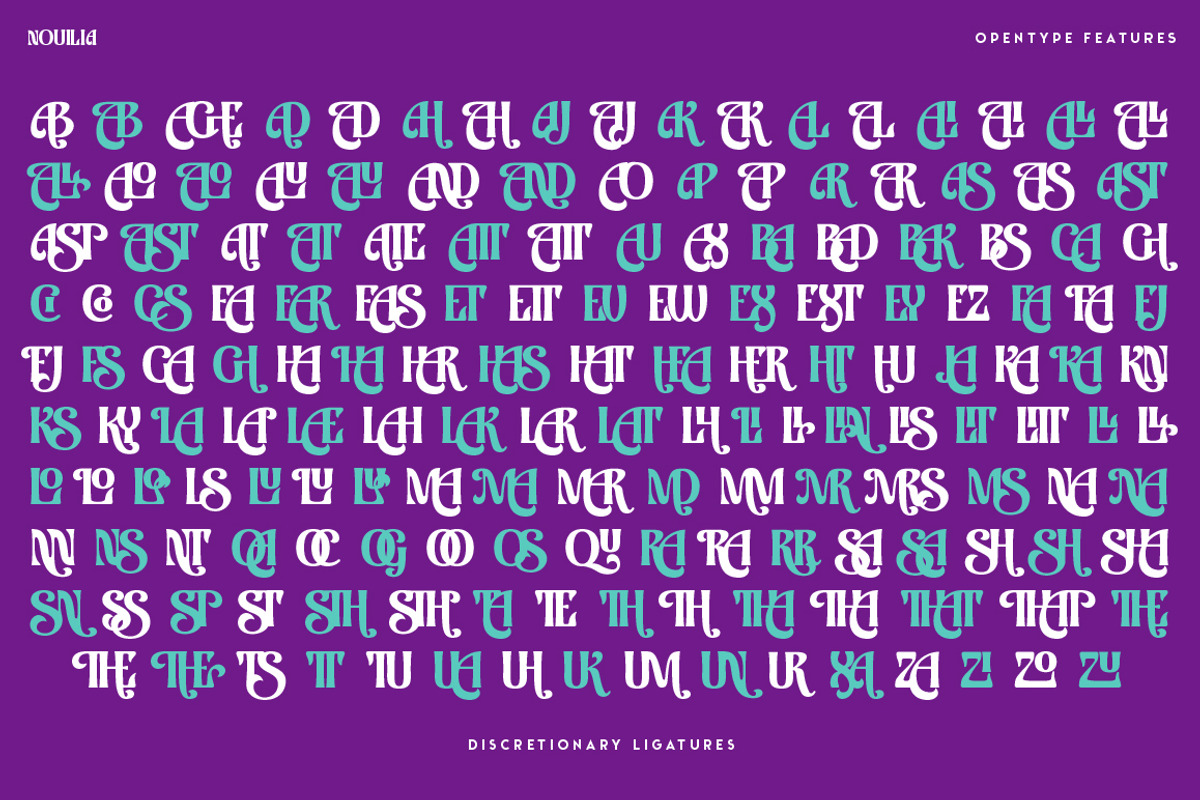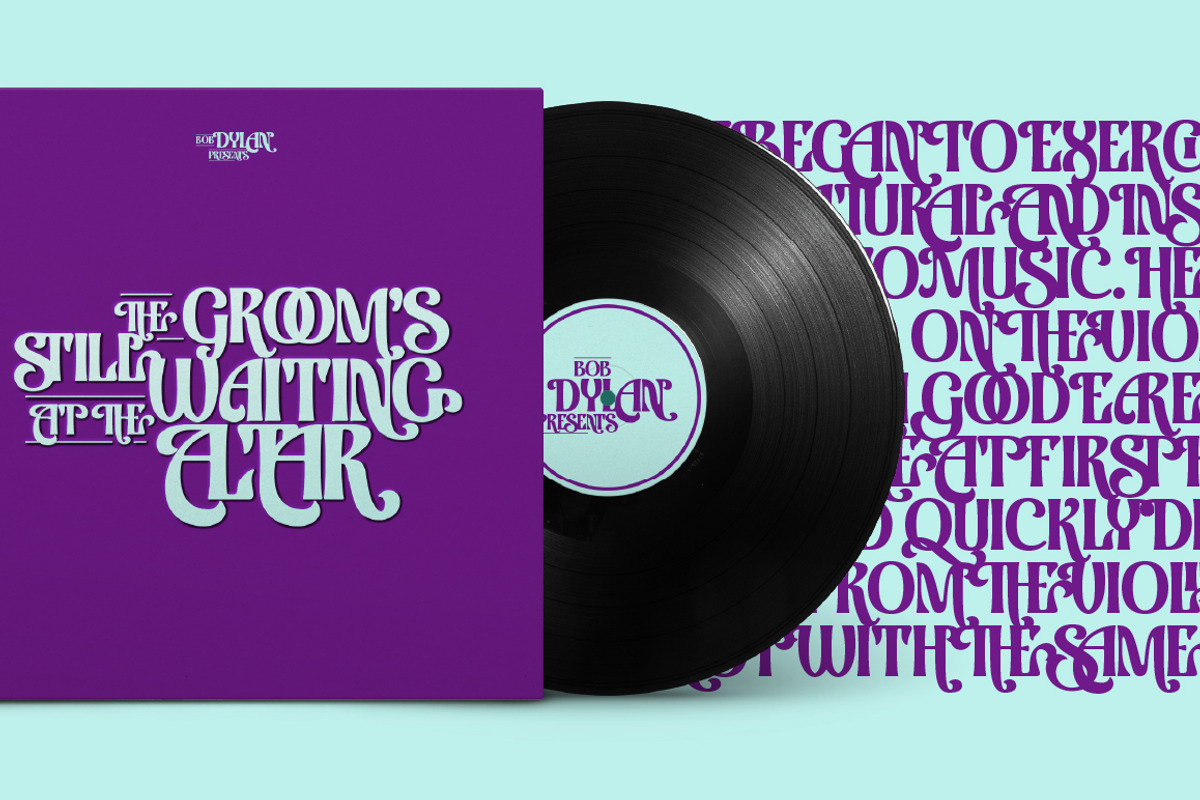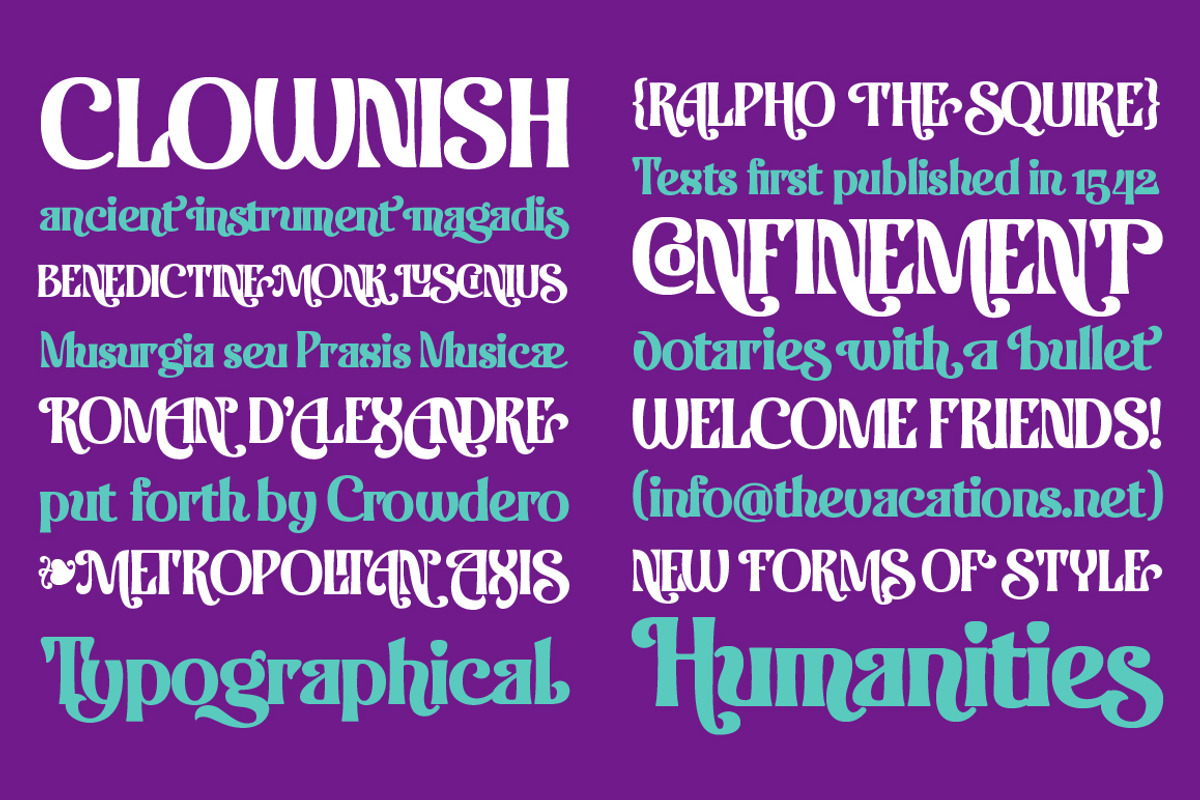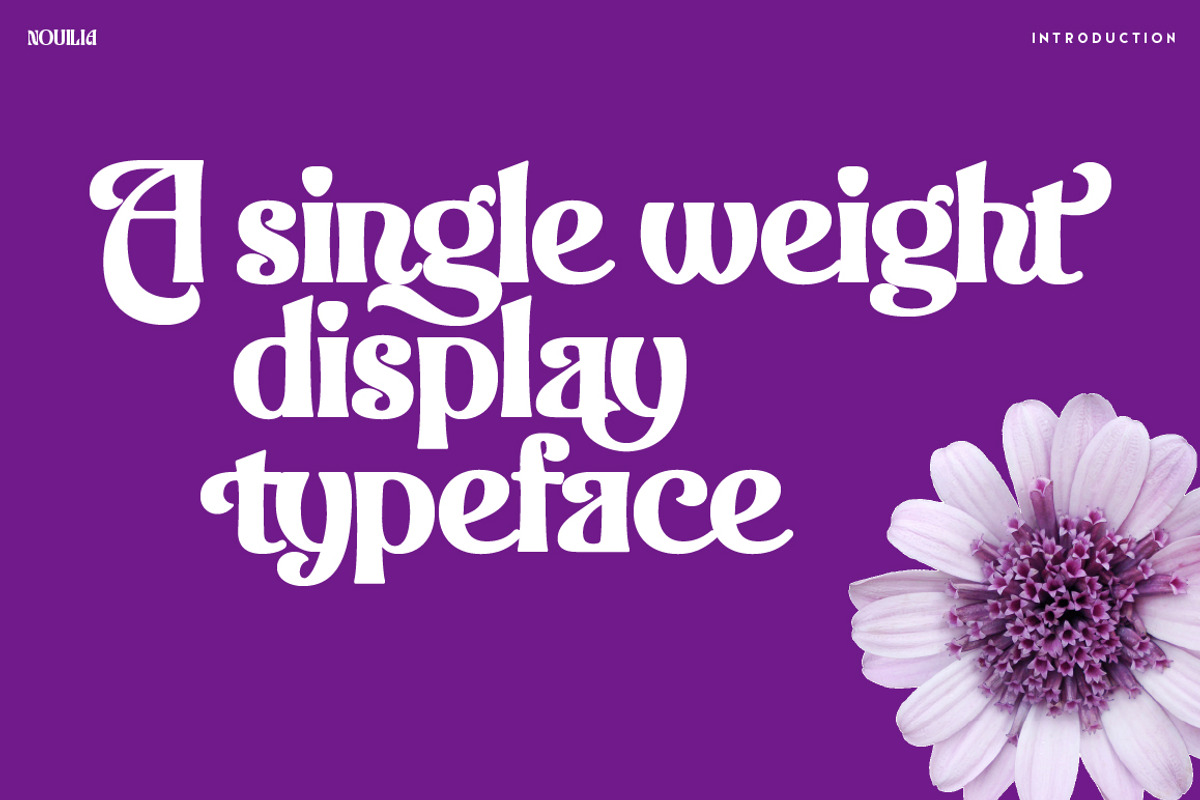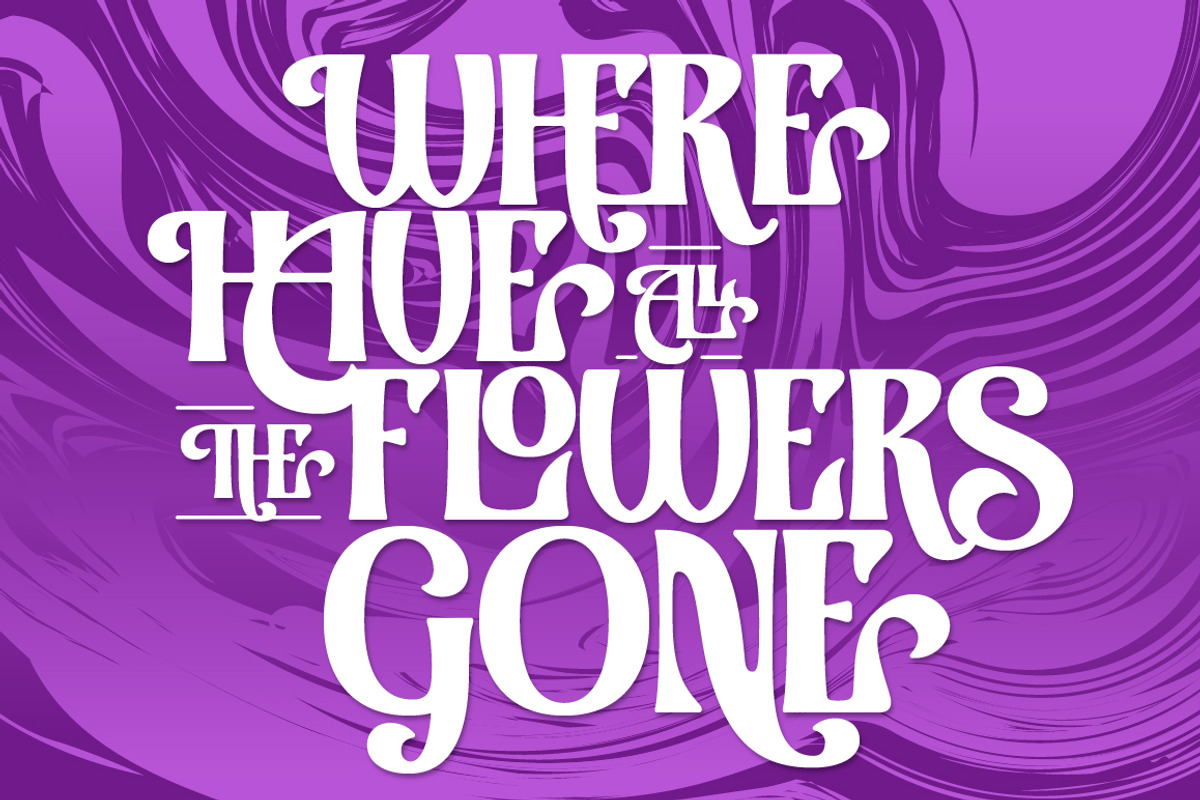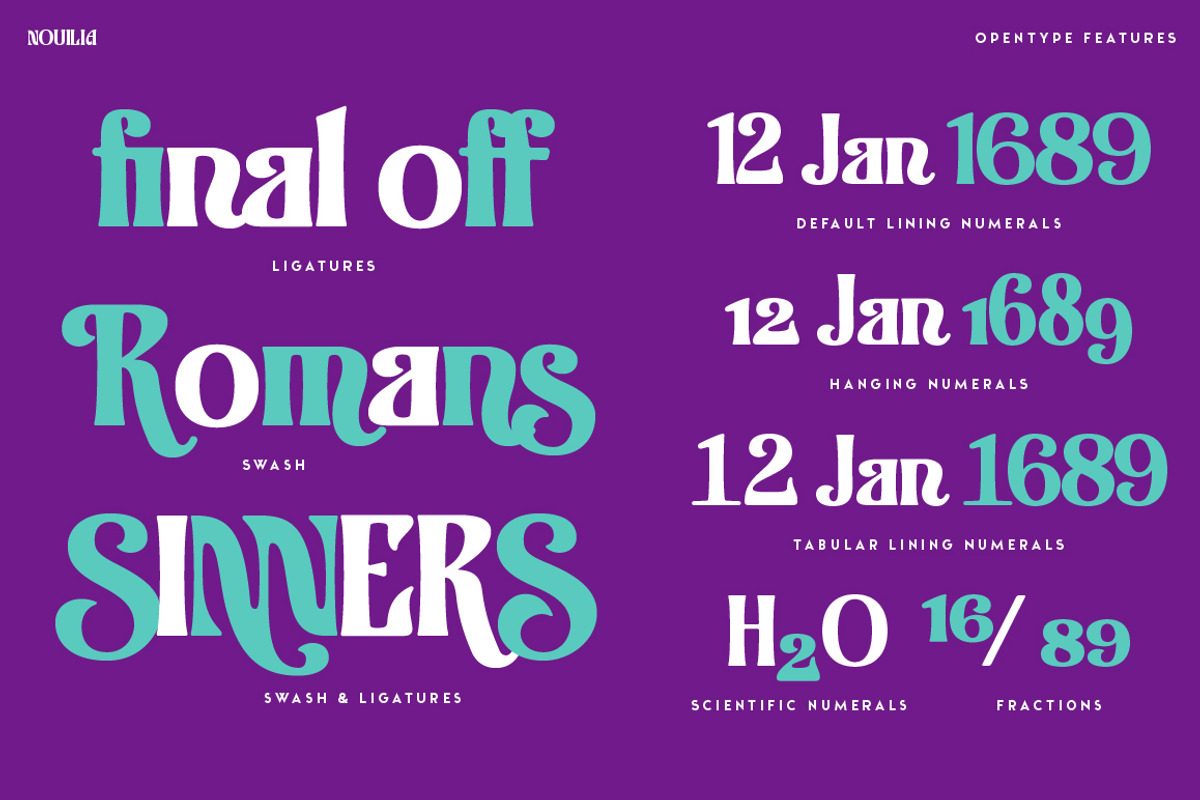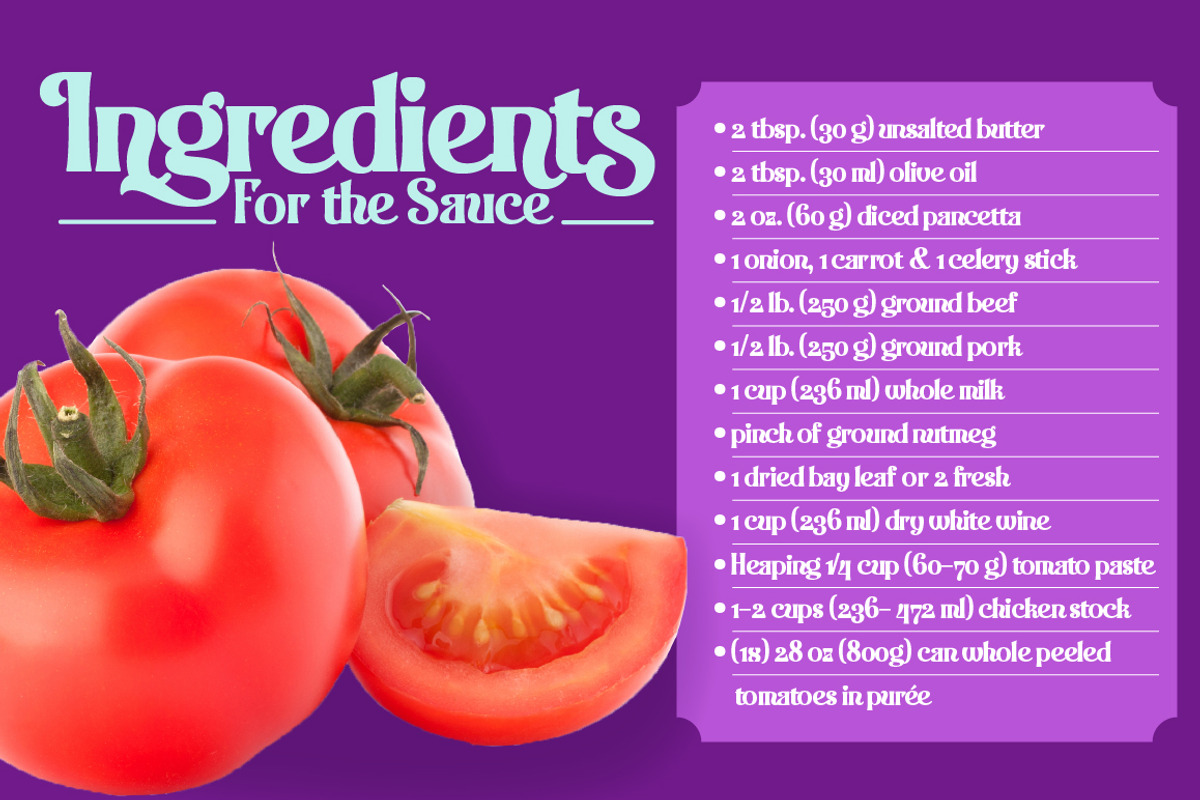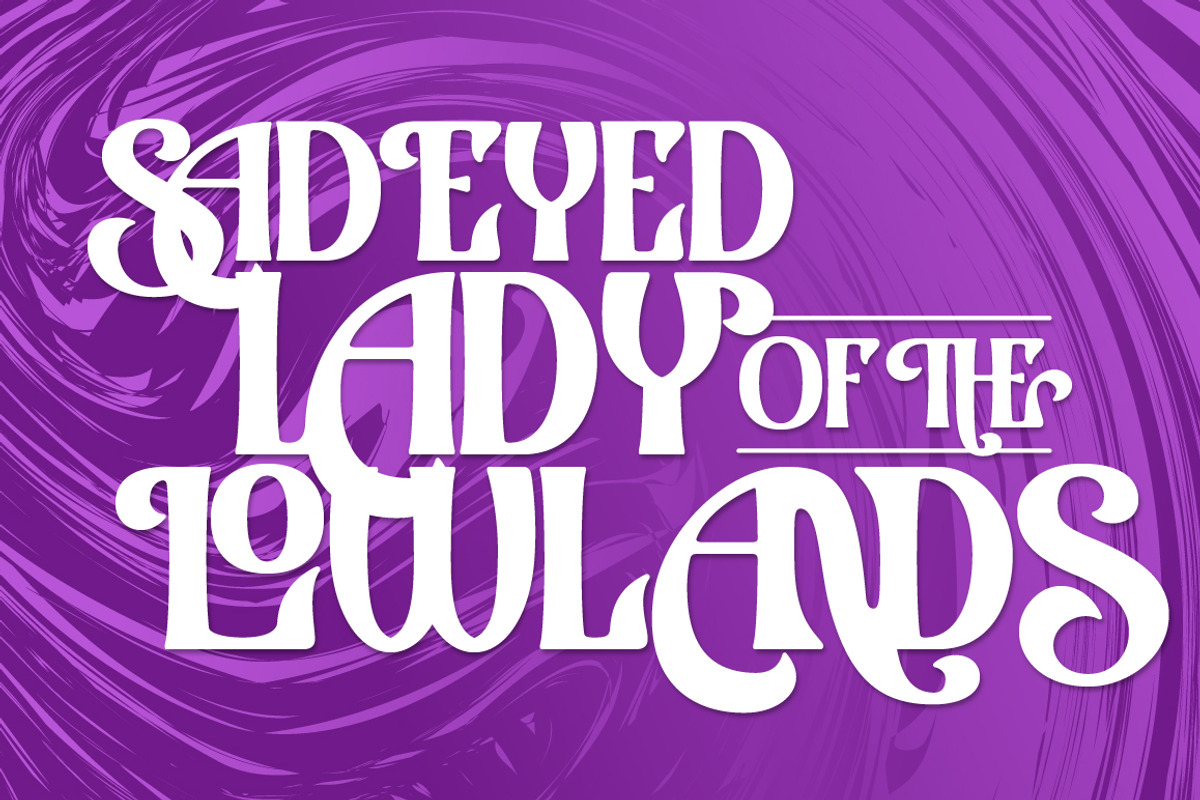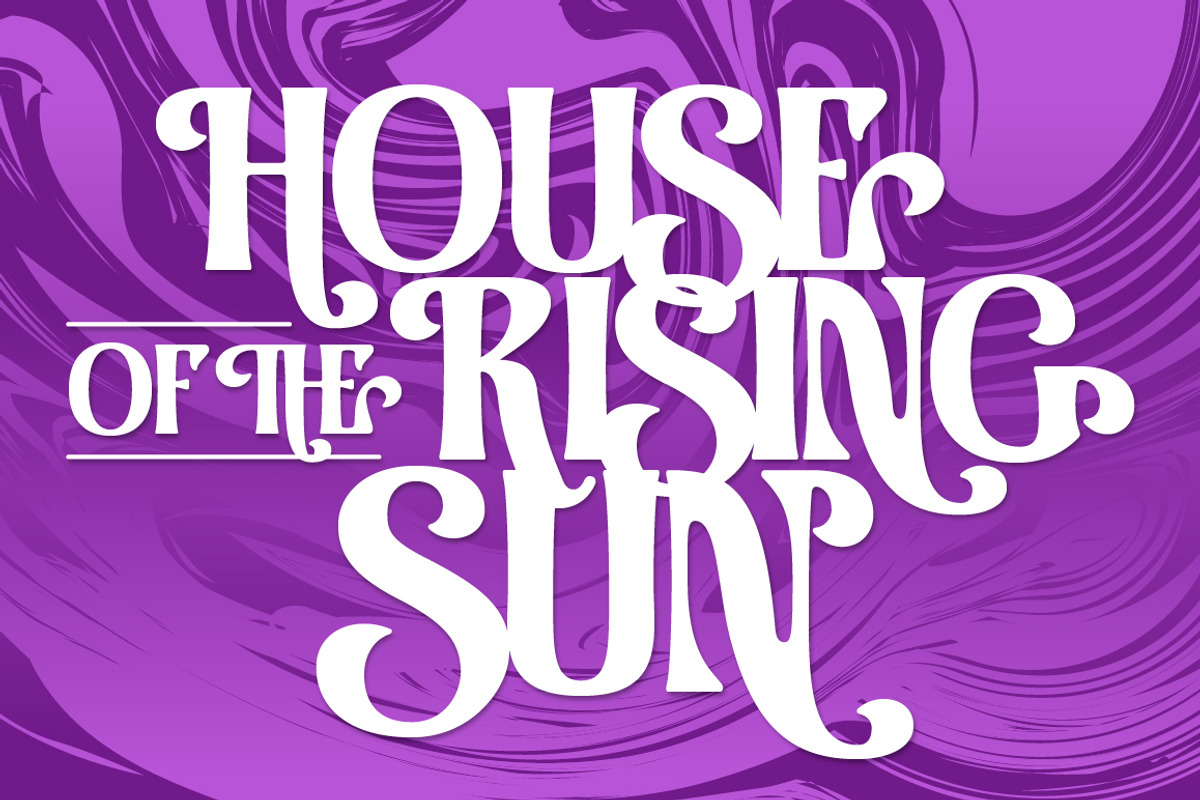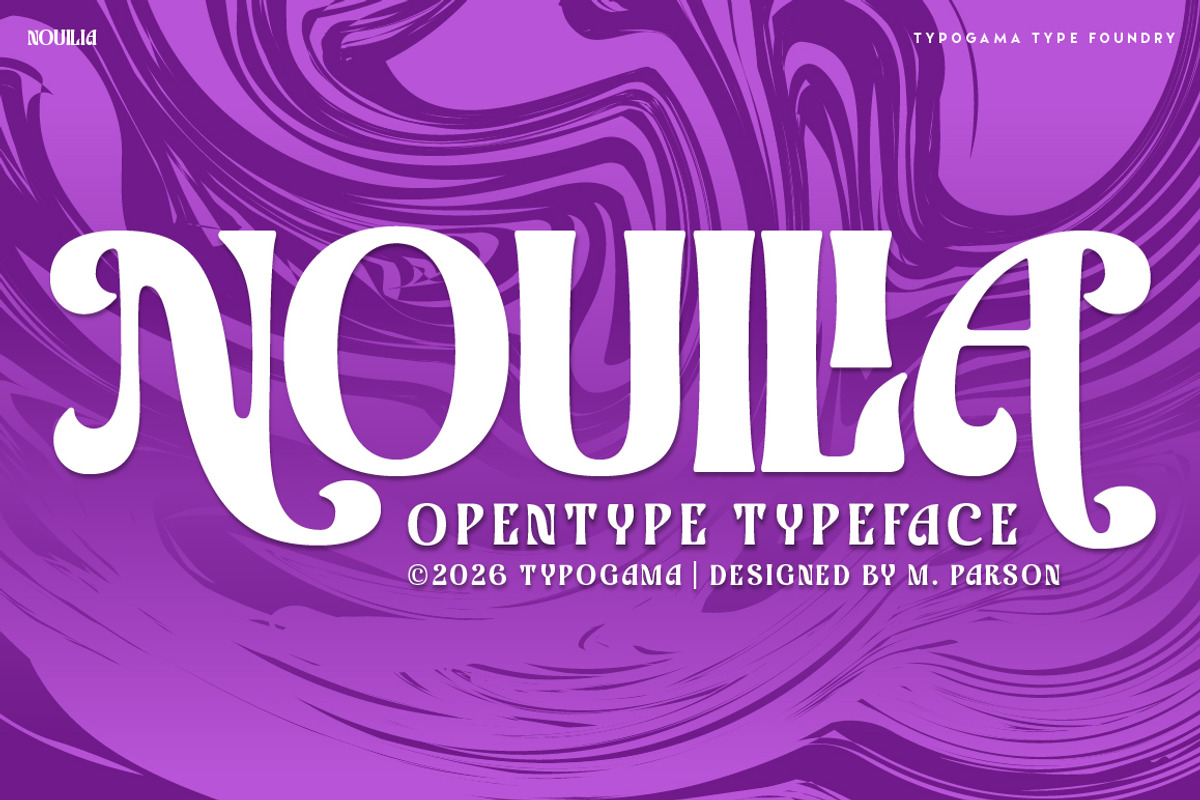
Nouilia
Nouilia is a single-weight display typeface inspired by a blend of calligraphy and linear strokes. With a unique style, the font includes a wide range of OpenType features, from ligatures, swashes, fractions, and various forms of numerals, offering a wide choice of layout solutions. It includes an extended Latin character set that covers over two hundred Latin-based languages and also includes a selection of arrows and typographic symbols.
Opentype features: Ligatures, Discretionary Ligatures, Swash, Alternates, Lining numerals, Hanging numerals, Tabular numerals, Scientific numerals, Fractions, Arrows